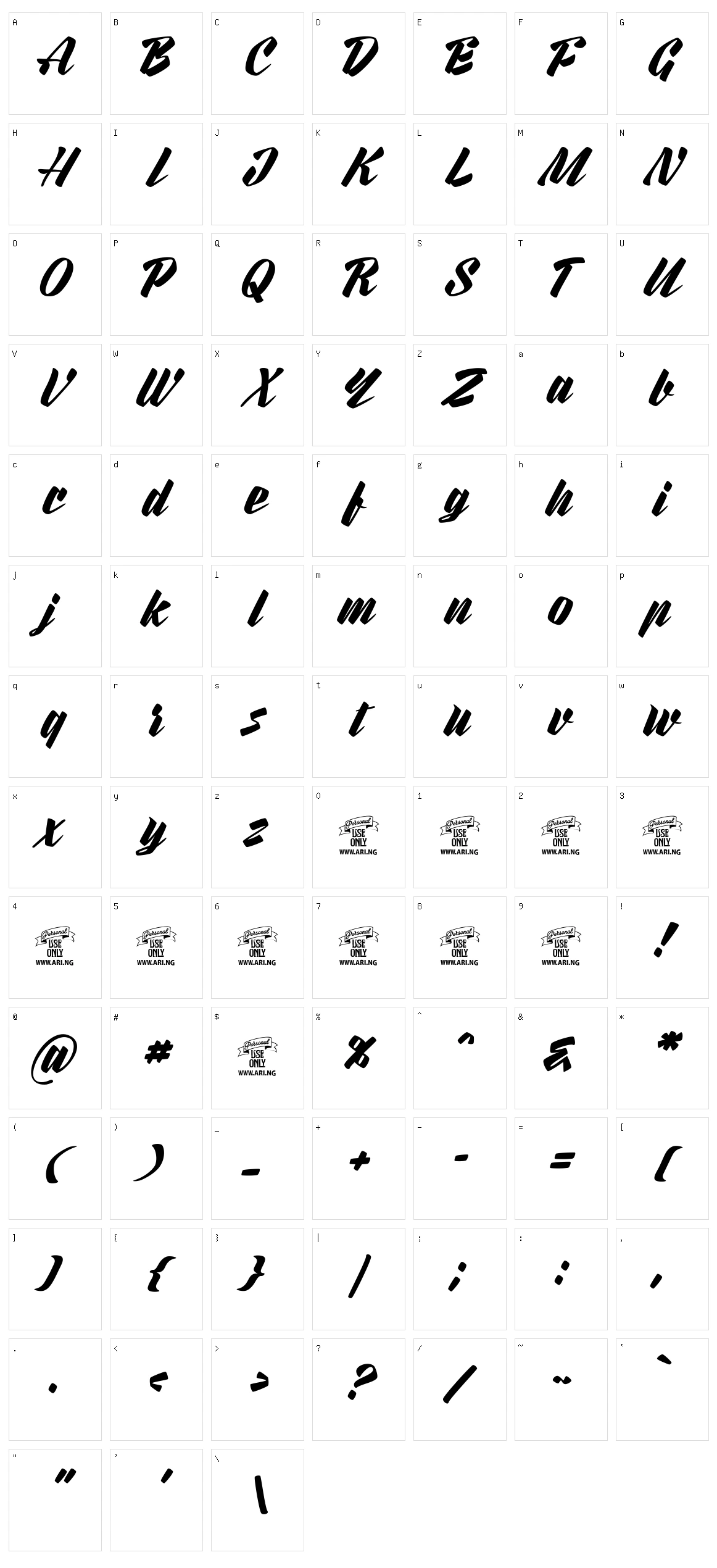
The free font Rurable is carefully designed by Mans Greback, showcasing a thoughtful balance of creativity and usability and falls under the Script font style. When you download the ZIP file, it contains only 2078.07 KB of font files, making it lightweight and quick to download. Please review the license details below to understand permitted usage and distribution rights. If license information is not available, we recommend using this font for personal projects only or contacting the author directly for commercial usage permissions.